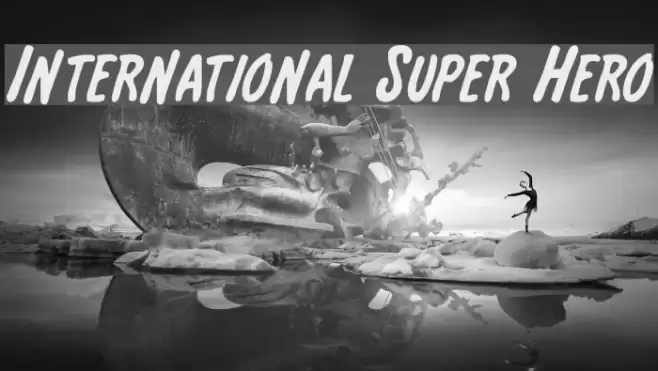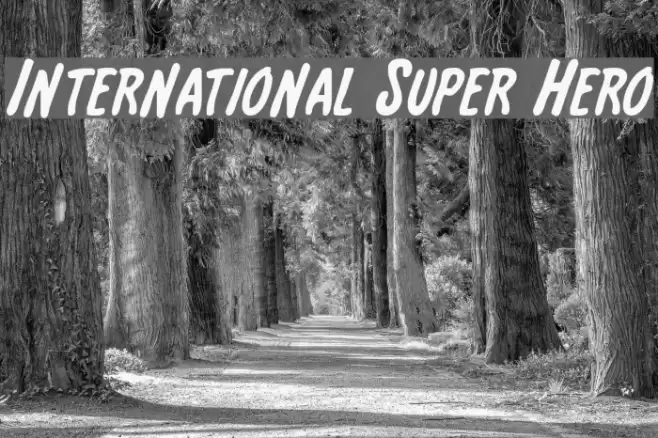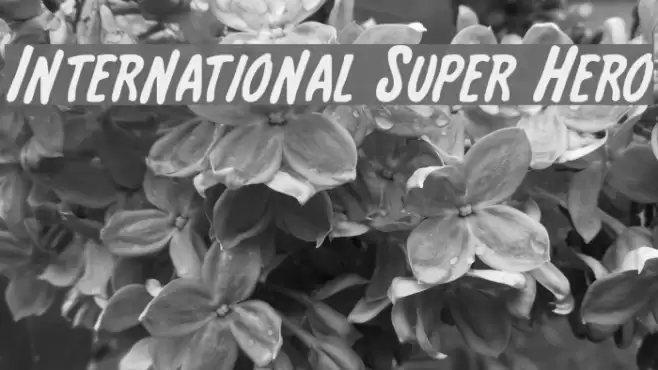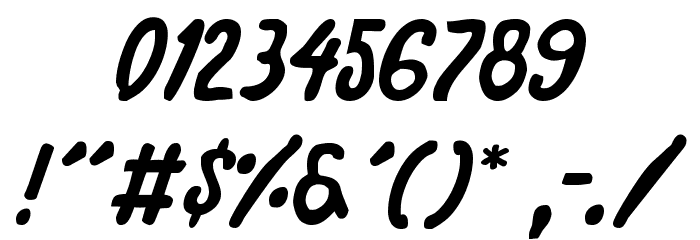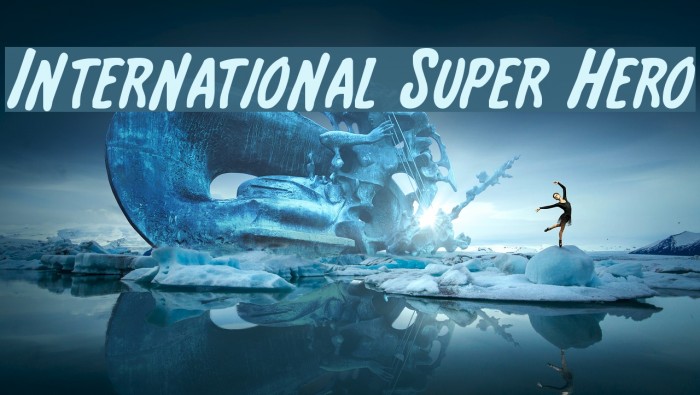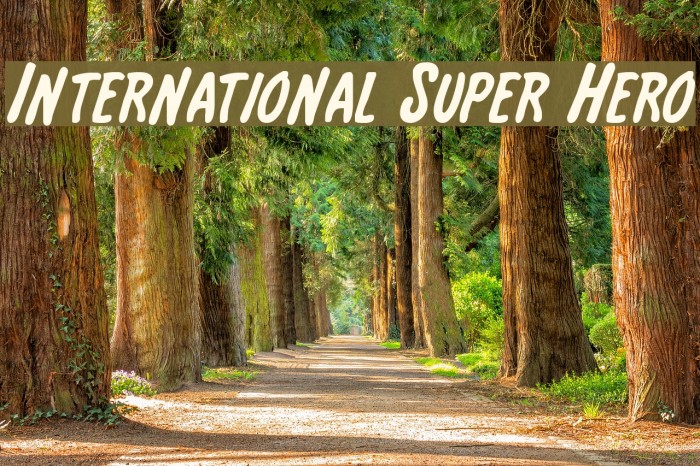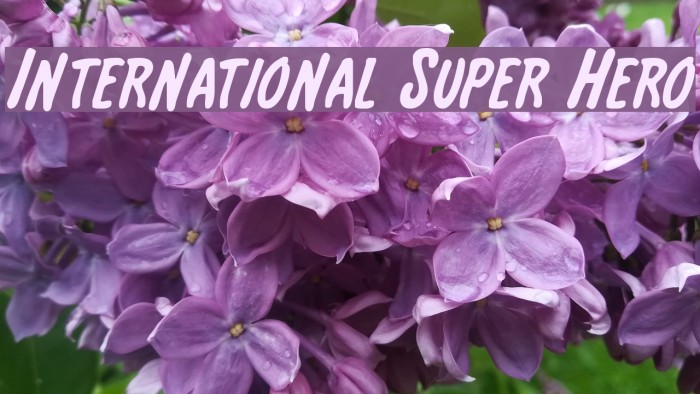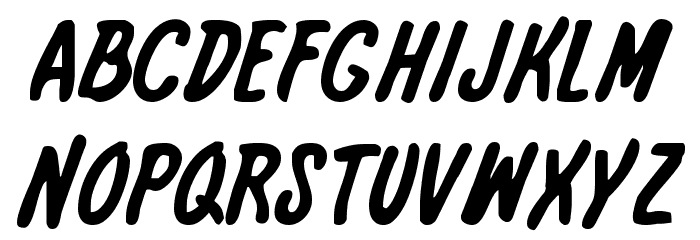
International Super Hero
This font features a bold and dynamic style with a handwritten appearance. The characters are slightly slanted, giving a sense of movement and energy. The strokes are thick and consistent, providing a strong visual impact. The uppercase and lowercase letters maintain a cohesive look, while the numerals and special characters complement the overall design. This font's playful and energetic nature makes it suitable for projects that require a lively and engaging aesthetic.
A bold, handwritten-style font with dynamic and energetic strokes.
- Proposed Projects: Ideal for comic book titles, posters, branding for energetic products, and playful graphic designs.
- Overall Style: Decorative
- Use Case: Headlines, Posters, Branding